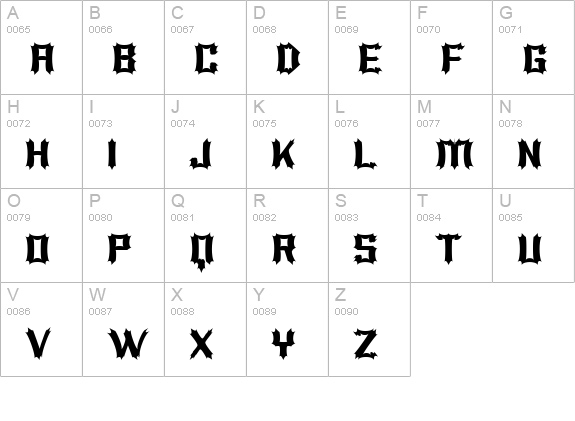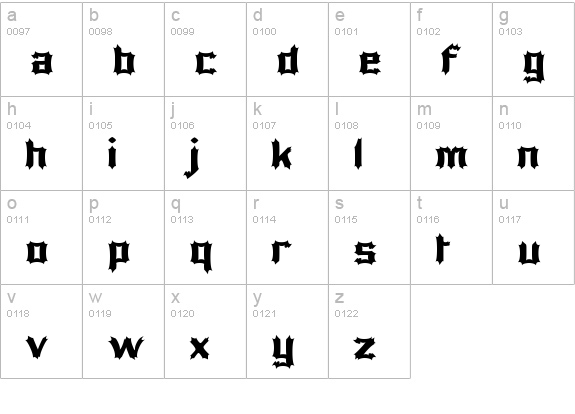
Luciferius Font Details
Luciferius font is a stunning display typeface that exudes elegance and sophistication. With its sharp, elegant lines and unique geometric shapes, Luciferius is perfect for creating eye-catching headlines, logos, and branding materials. This versatile font is sure to make a bold statement and captivate your audience. Best of all, Luciferius font is completely free to download at FontsMarket.com. So whether you're a designer looking to add a touch of luxury to your projects or a business owner seeking a distinctive font for your branding, Luciferius is the perfect choice. Download it now and elevate your designs to the next level with this exquisite typeface.